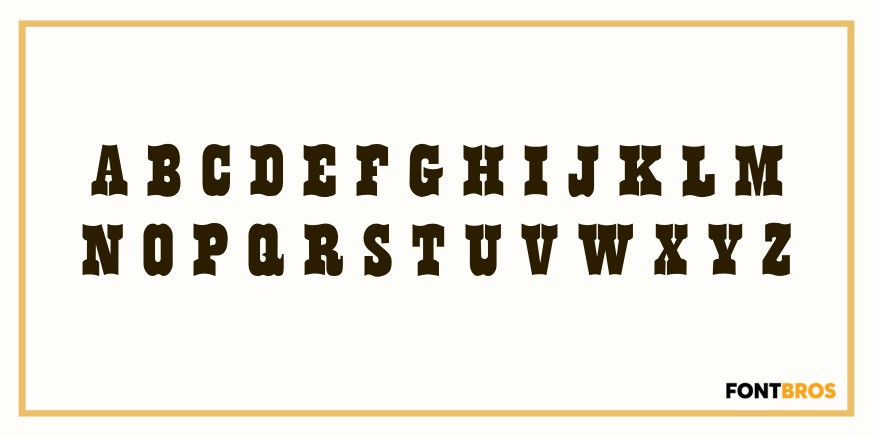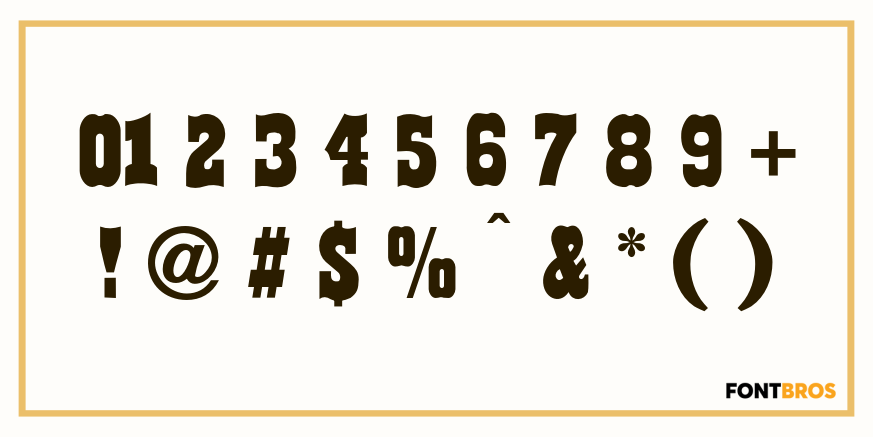
Flo Barnum
Font Family by Solotype
No telling how old this font is, because it came from Hamilton, a firm that was late in the wood type business, but was the repository of many older patterns from earlier wood type makers.
Great circus look to it. Some missing characters drawn at Solotype.